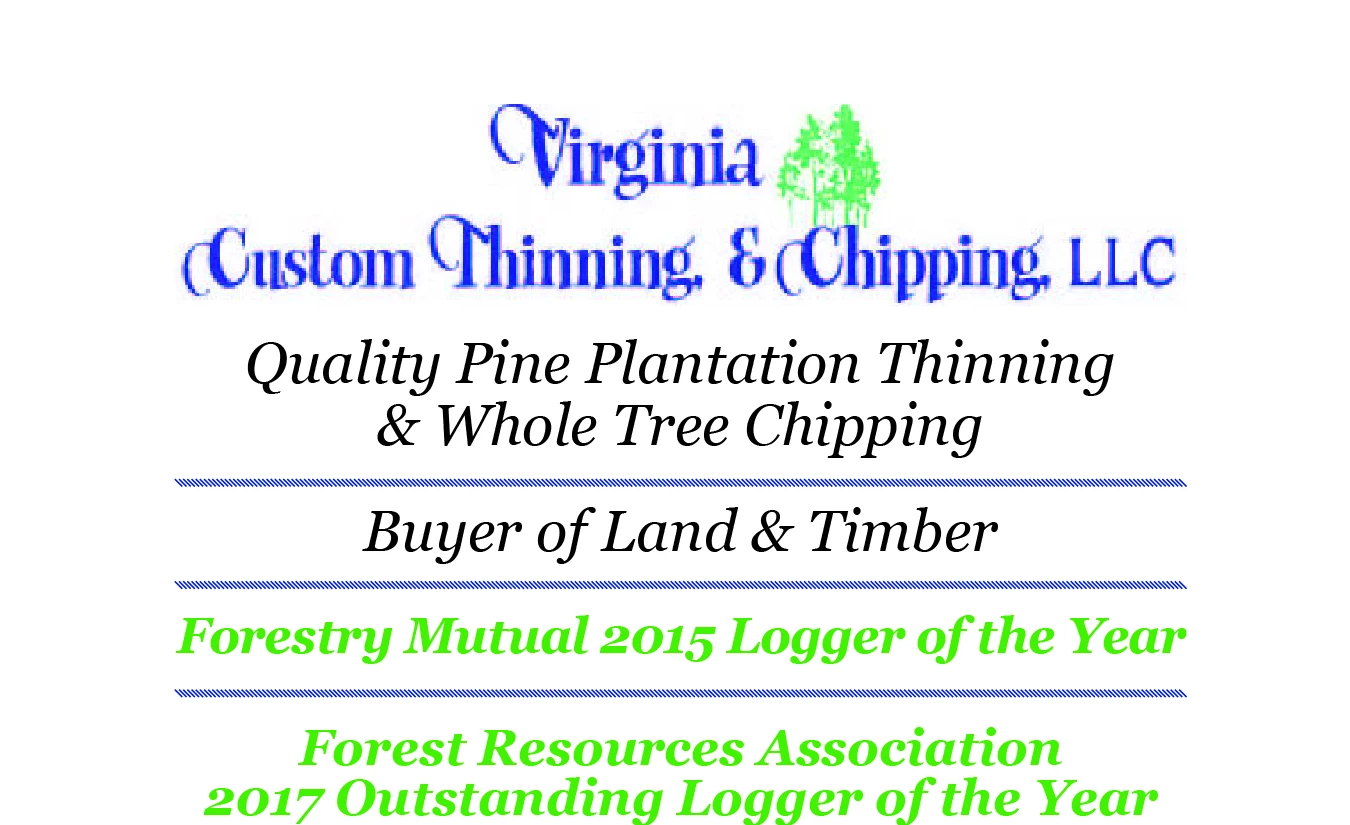
Finding this font Virginia Custom Thinning
You might try searching for antique/vintage sign fonts. Some examples are here: https://www.pinterest.com/kccnancy/antique-vintage-signs. The special characters (C/T/V) could have been hand drawn because the two Cs are slightly different, but it could be the blurred image, too. If you don't need the entire font, you could recreate the style with outlines in Illustrator.
Hello. Yes, I need to know what font it is. I do use Adobe fonnts and others. I cant seem to get a match to redo artwork. Can you help?
I understand your query I searched all the fonts and also with adding filters but nothing same I got I have something similar: